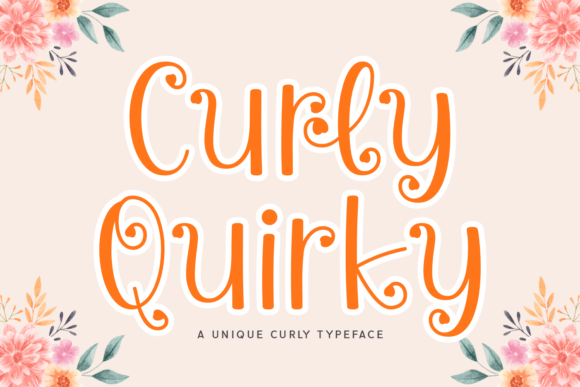
Introducing Curly Quirky Font: Elevate Your Designs with a Playful Twist
In the world of design, fonts play a crucial role in conveying the tone and personality of a project. If you’re looking for a font that adds a touch of whimsy and fun to your designs, look no further than Curly Quirky Font. This delightful font is perfect for creating eye-catching birthday cards, invitations, wedding invitations, logos, coffee shop branding, covers, quotes, and so much more.
The Unique Charm of Curly Quirky Font
Curly Quirky Font stands out from the crowd with its distinctive swirls and playful aesthetic. Its curly, quirky design makes it an ideal choice for projects that require a lighthearted and cheerful vibe. Whether you’re designing for a personal or professional project, this font is sure to capture the attention of your audience and leave a lasting impression.
Endless Possibilities with Curly Quirky Font
The versatility of Curly Quirky Font is one of its most appealing features. Its uses are endless, and it can be applied to a wide range of design projects, including:
- Birthday cards: Add a personal touch to your birthday greetings with Curly Quirky Font’s playful and colorful swirls.
- Invitations: Make your invitations stand out with this unique font, perfect for weddings, baby showers, and other celebrations.
- Wedding invitations: Give your wedding invitations a romantic and whimsical touch with Curly Quirky Font.
- Logos: Create a memorable logo for your business or brand with this eye-catching font.
- Coffee shop branding: Add a touch of personality to your coffee shop’s branding with Curly Quirky Font’s playful design.
- Covers: Use Curly Quirky Font to create eye-catching covers for books, magazines, or social media posts.
- Quotes: Make your quotes stand out with this beautiful and playful font.
Why Choose Curly Quirky Font?
With so many fonts available, why choose Curly Quirky Font? Here are just a few reasons:
- Unique design: Curly Quirky Font’s distinctive swirls and playful aesthetic set it apart from other fonts.
- Versatility: This font can be used for a wide range of design projects, from personal to professional.
- High-quality: Curly Quirky Font is a high-quality font designed to deliver exceptional results.
Tips for Using Curly Quirky Font
To get the most out of Curly Quirky Font, here are some tips:
- Experiment with colors: Curly Quirky Font looks great in a variety of colors, so don’t be afraid to experiment and find the perfect hue for your design.
- Mix and match: Combine Curly Quirky Font with other fonts to create a unique and visually appealing design.
- Play with swirls: Take advantage of Curly Quirky Font’s distinctive swirls to add a touch of whimsy to your design.
Curly Quirky Font is a fun and playful way to level up your next design. With its eye-catching swirls and versatile design, it’s perfect for a wide range of projects. Whether you’re a designer, artist, or simply someone looking to add a personal touch to your creations, Curly Quirky Font is an excellent choice. So why not give it a try and see how it can elevate your designs?